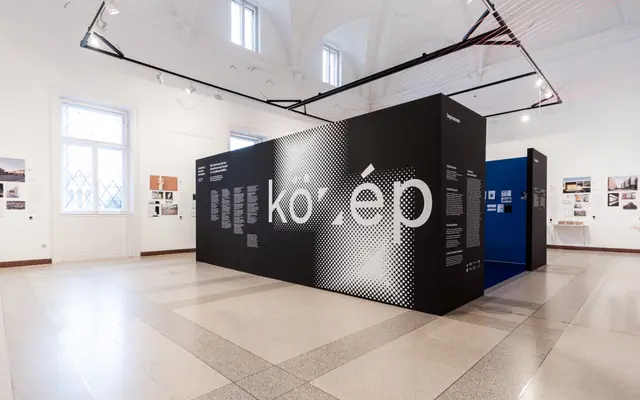
Menoe Grotesque
Hungarumlaut · Adam Katyi · 2015
A monospaced grotesque drawn from the proportions of a Continental typewriter, set at a strict 10-pitch spacing across Latin, Greek and Cyrillic scripts.
Adam Katyi analysed the serif typeface of an old Continental typewriter and redrew it without serifs, preserving the 10-pitch spacing convention where ten characters at 12pt measure exactly one inch. All characters share an identical bounding box width, making it well suited to code, tabular data and columnar text. Script coverage spans 86 languages across Latin, Greek and Cyrillic, included at no extra cost.
A monospaced, sans-serif typeface derived from typewriter conventions, specifically a 10-pitch spacing model. The absence of serifs and even character width place it firmly in the monospaced grotesque category.